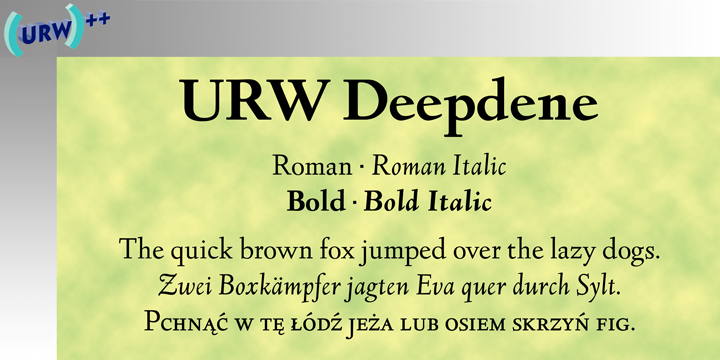
Deepdene Font is perfect for luxury book publishing, high-end editorial magazines, classical literature reprints, academic journal publications, prestigious corporate communications, fine art exhibition catalogs, cultural institution materials, sophisticated wine labels, traditional craftsmanship branding, and elegant invitation design. This distinguished typeface excels in environments where literary sophistication and timeless elegance are essential for refined communication.
What makes Deepdene Font exciting is its masterful interpretation of classical Renaissance typography principles adapted for contemporary luxury applications. The font features elegantly proportioned letterforms with subtle calligraphic influences that create exceptional readability while conveying scholarly authority and artistic refinement. This sophisticated heritage makes it ideal for brands seeking to communicate intellectual depth, cultural sophistication, and enduring quality through typography.
Deepdene Font family includes Light, Regular, Medium, Bold, and corresponding Italic variants. Each weight maintains the font's distinctive classical character while offering comprehensive flexibility for creating elegant typographic hierarchies that honor traditional book design principles while meeting contemporary publishing standards.
Typography connoisseurs appreciate the font's exceptional adherence to classical proportions and its ability to create the intimate reading experience essential for serious literary works. The carefully crafted letterforms and optimized spacing ensure sustained reading comfort while maintaining the dignity required for scholarly publications.
When implementing Deepdene Font in design projects, the results consistently demonstrate both intellectual authority and aesthetic refinement. The font's scholarly personality makes it particularly effective for brands in publishing, education, fine arts, and luxury goods where cultural credibility and literary sophistication are essential brand attributes.
For digital environments, Deepdene Font renders beautifully across reading platforms, maintaining its classical elegance and superior readability from e-readers to desktop displays. Its optimized metrics ensure comfortable extended reading experiences across various digital formats.
Publishing professionals consistently select Deepdene Font for projects requiring authentic literary appeal and classical sophistication, where modern fonts cannot capture the desired scholarly authority and cultural refinement that defines prestigious intellectual publications.